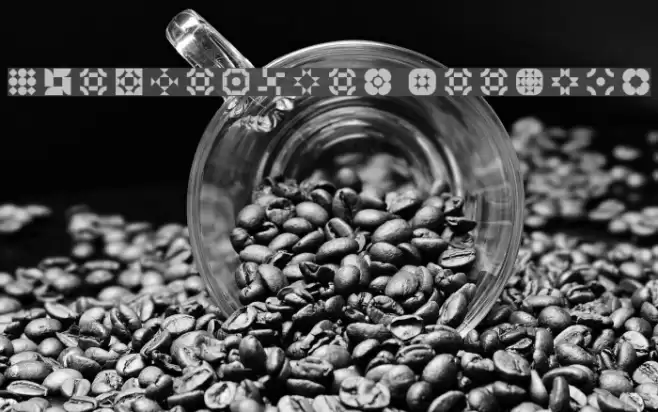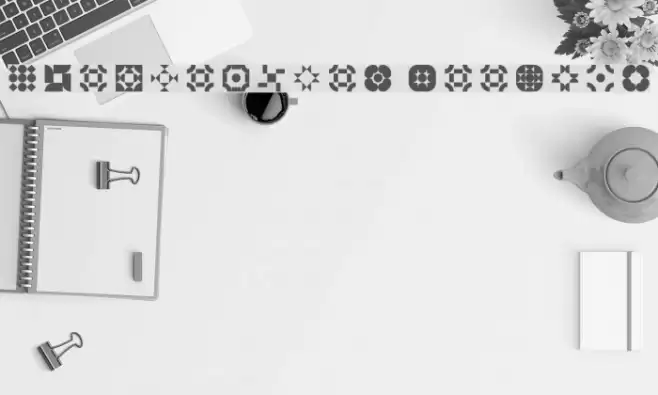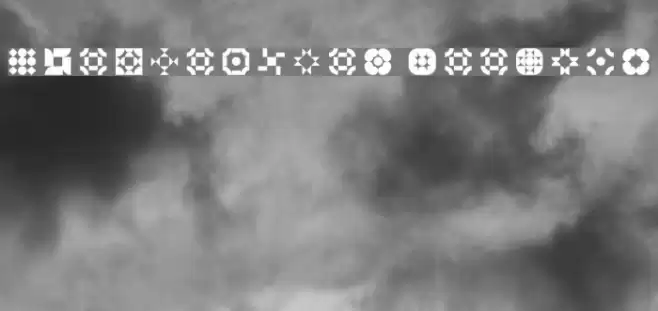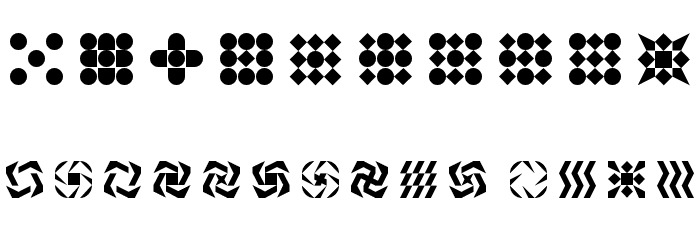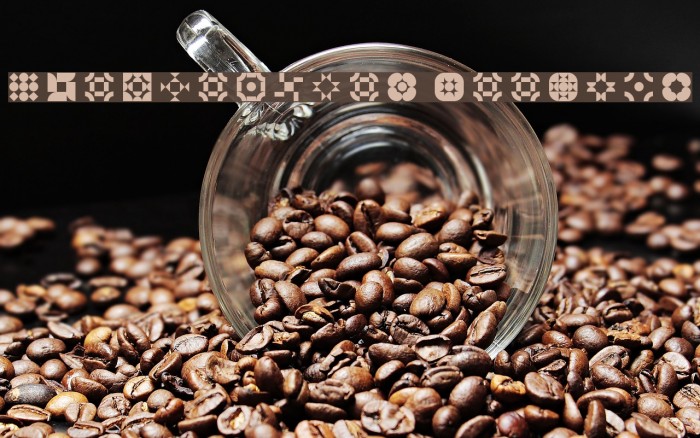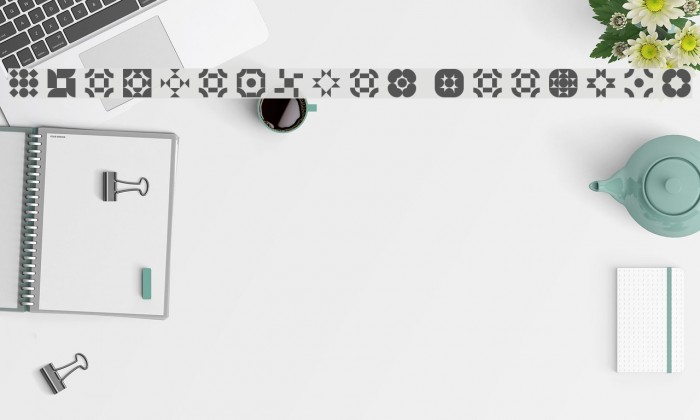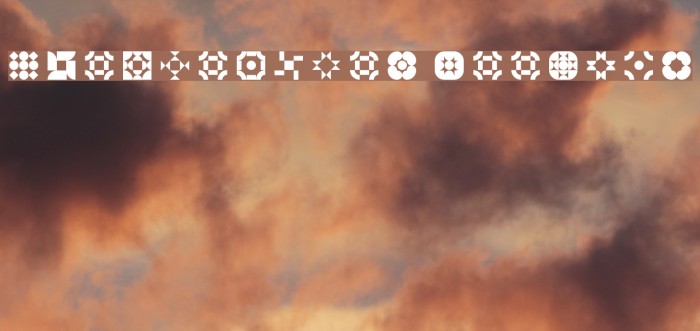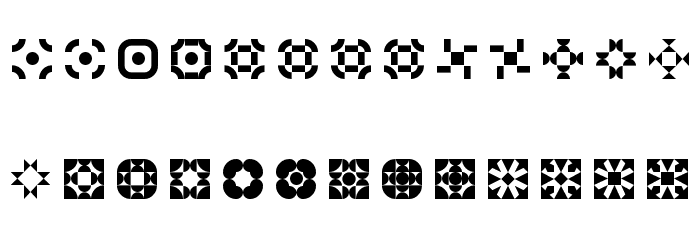
5Geomedings Regular Font
5Geomedings Regular Description
A collection of bold, geometric dingbats and symbols featuring symmetrical shapes, patterns, and abstract forms. Each character is a unique decorative glyph, with high contrast and solid black fills, designed for ornamental or pattern-based use rather than traditional text.
Bold geometric dingbat symbols with high contrast and decorative patterns from Dingbats fonts.
- Overall Style: Modern, Decorative
- Use Case: Ornamental elements, icons, dividers, branding accents, pattern creation.